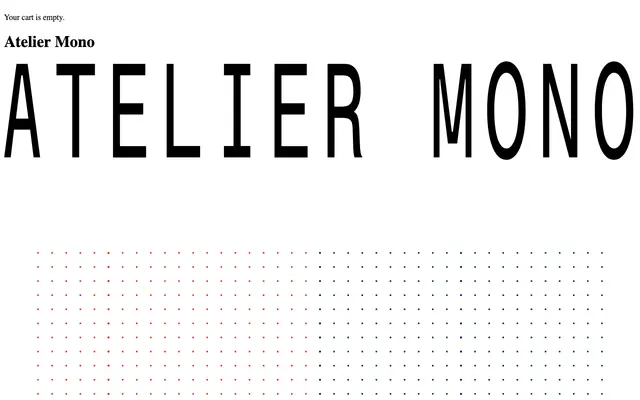
Atelier Mono
A custom monospaced typeface designed for Atelier Général, a Montreal architecture agency, where fixed-width uniformity serves the identity rather than ornamenting it.
Commissioned by Feedtype for Atelier Général, the font was built to function as the foundational unit of the agency's visual identity. Its fixed-width structure lends a steady, grid-like quality appropriate to an architectural practice. The design keeps itself deliberately unobtrusive, stepping back to let the architecture work take precedence.
Designed specifically as a monospaced font, where every character occupies an equal fixed width, suited to a branding context requiring structural consistency and alignment.